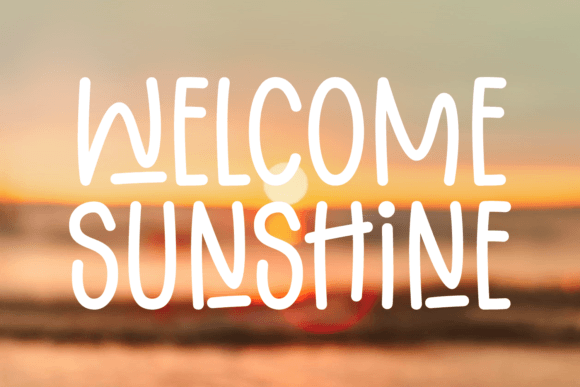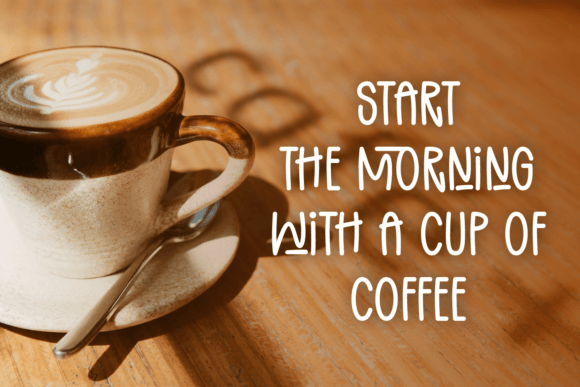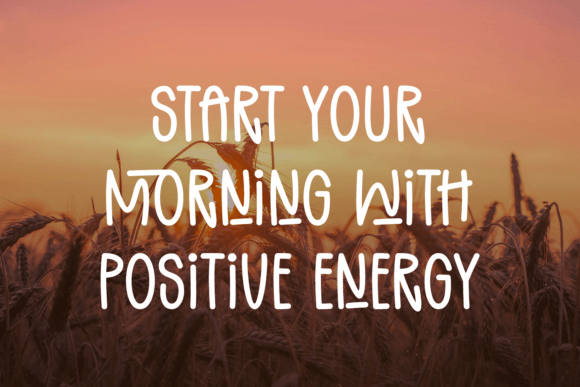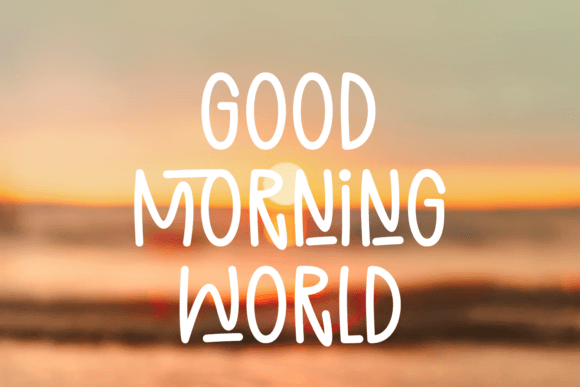
Introduction to Mondar Mandir Font
Mondar Mandir is a stylish and elegant typeface that exudes sophistication and versatility.
Inspired by classic calligraphy, this font features smooth, flowing lines and a handwritten appearance, adding a touch of charm and refinement to any project The Mondar Mandir Font is suitable for both formal and informal contexts.
Mondar Mandir Font offers exceptional quality and versatility, making it a valuable addition to your design toolkit. Whether you’re creating for personal projects or commercial use, Mondar Mandir Font delivers professional results.